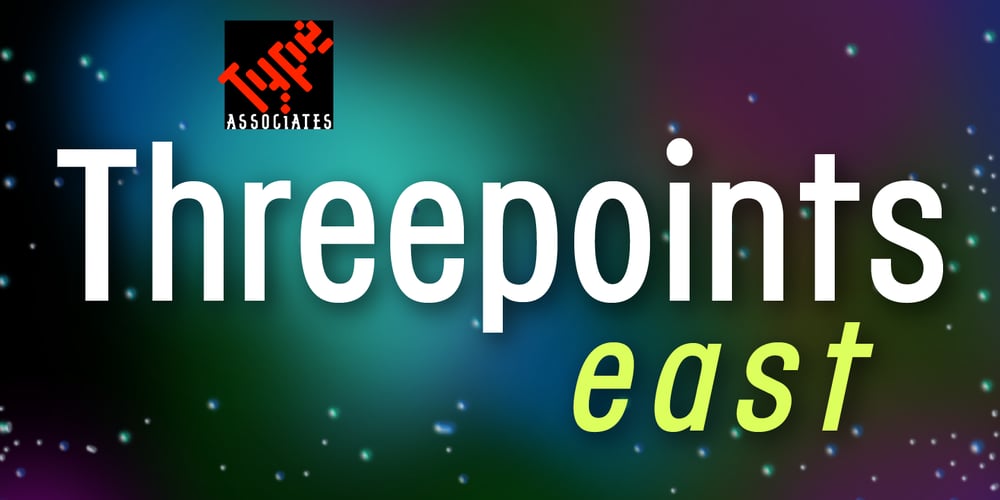
Threepoints East
Threepoints East font
Threepoints East Font Family was designed by Russell Bean and published by Type Associates. Threepoints East contains 2 styles and family package options. The Threepoints Series is the result of several years of work that bases three different sans serif type designs on one “shell”. Designed for optimal readability North, with its squarish shapes and rigidity are suggestive of an upright Swiss or Inserat typeface. The East variant takes on the look of another popular condensed grotesk with a softer, more rounded basic shape whilst maintaining the purpose of the original design.With minimal adjustments West leans towards more contemporary European designs.Although these are primarily display typefaces they function extremely well in text sizes in either upper or lowercase composition. Excellent for signage. Each variant comes with matched italic at no additional cost.